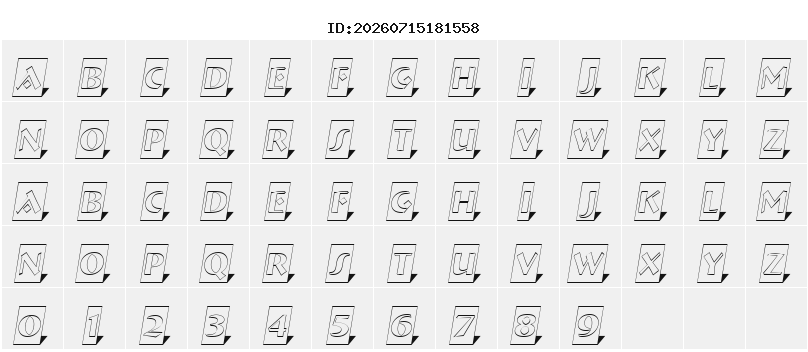
a_BremenlCmOtl3DSh Preview
• Font Name: a_BremenlCmOtl3DSh
• Full Font Name: a_BremenlCmOtl3DSh
• PostScript Name: ABremenlCmOtl3DSh
About a_BremenlCmOtl3DSh.ttf
a_BremenlCmOtl3DSh.ttf is a modern, elegant sans-serif font designed for ultimate readability and visual harmony. Perfect for branding, headlines, web design, and print materials.